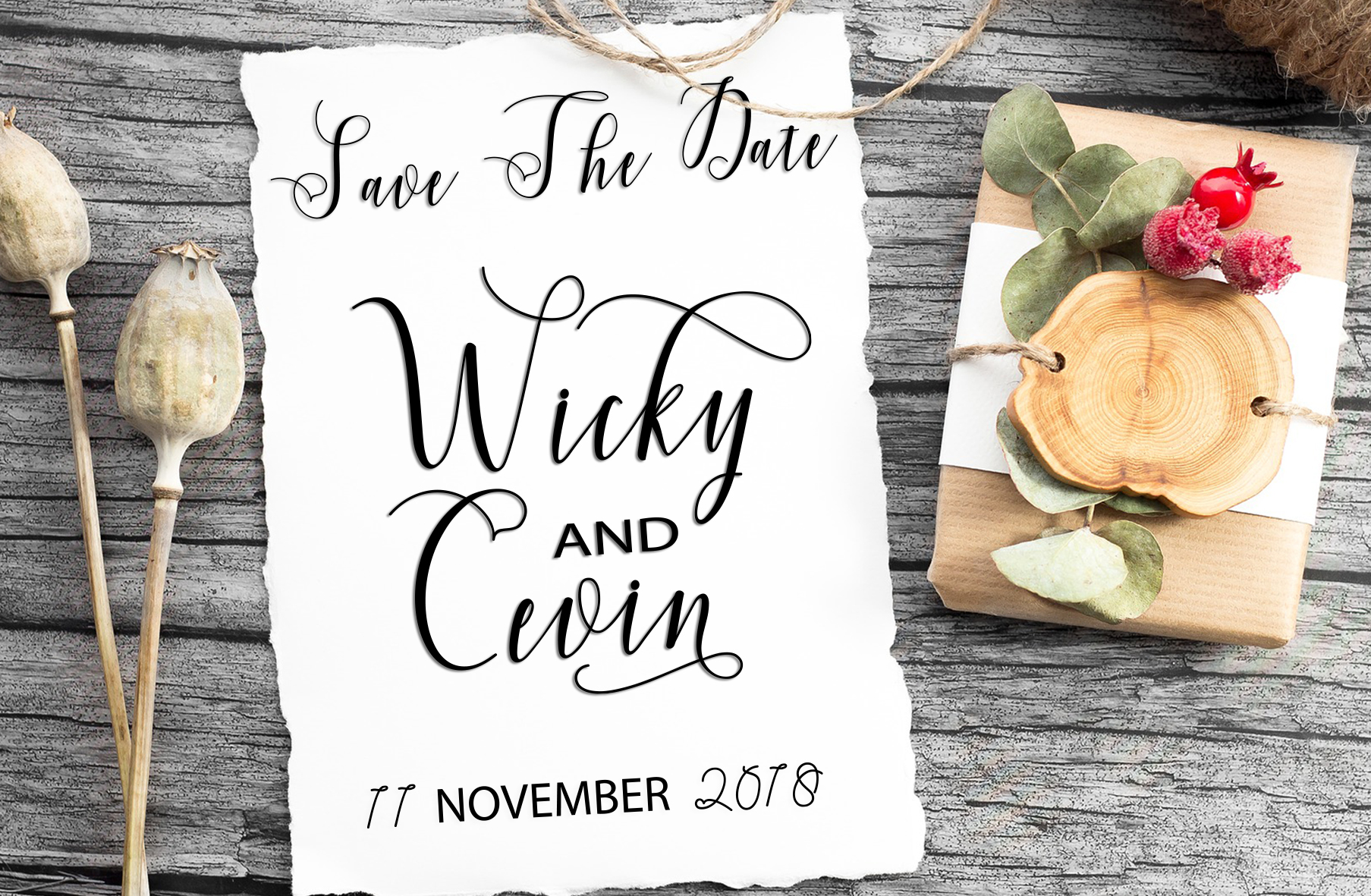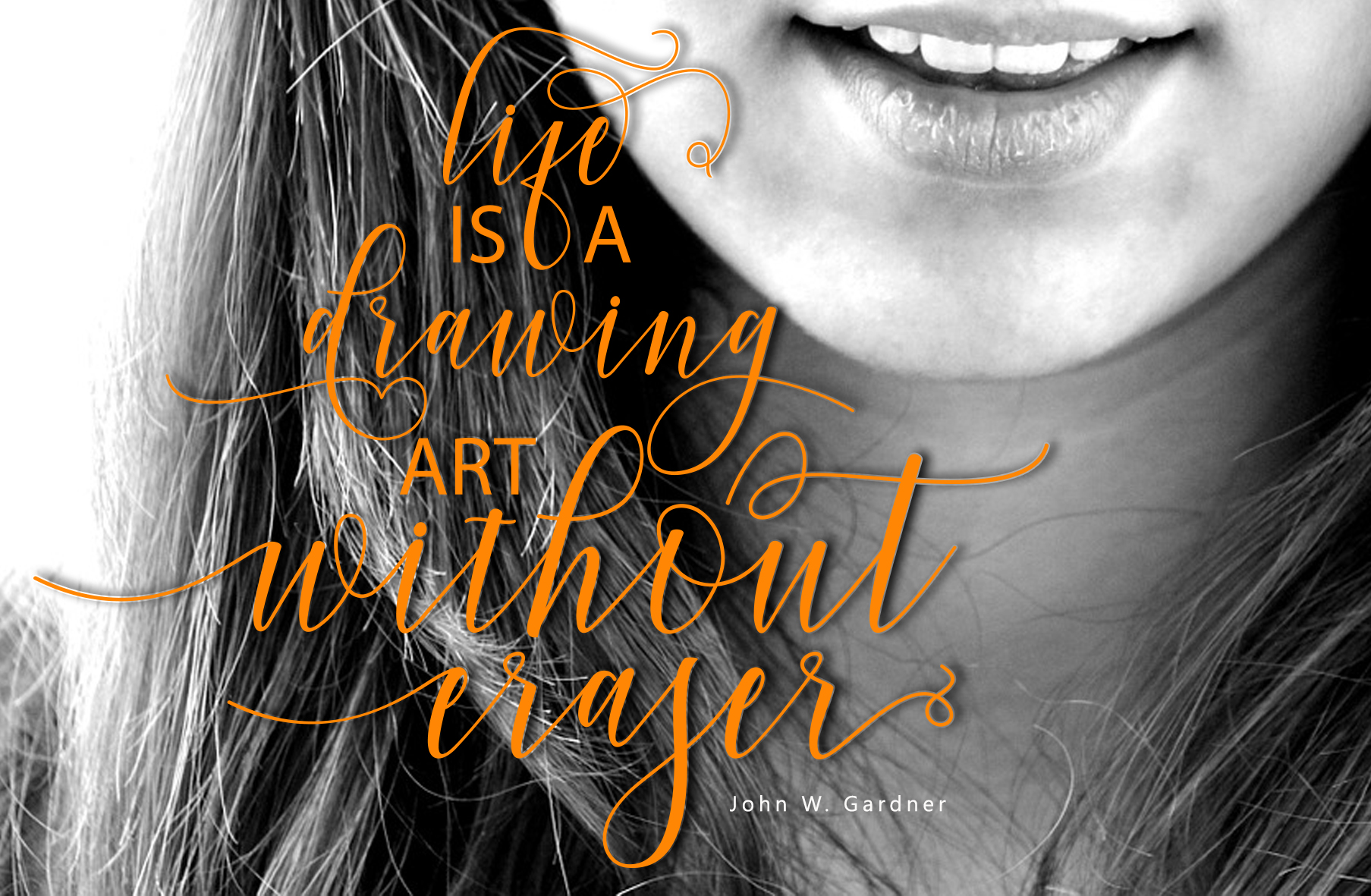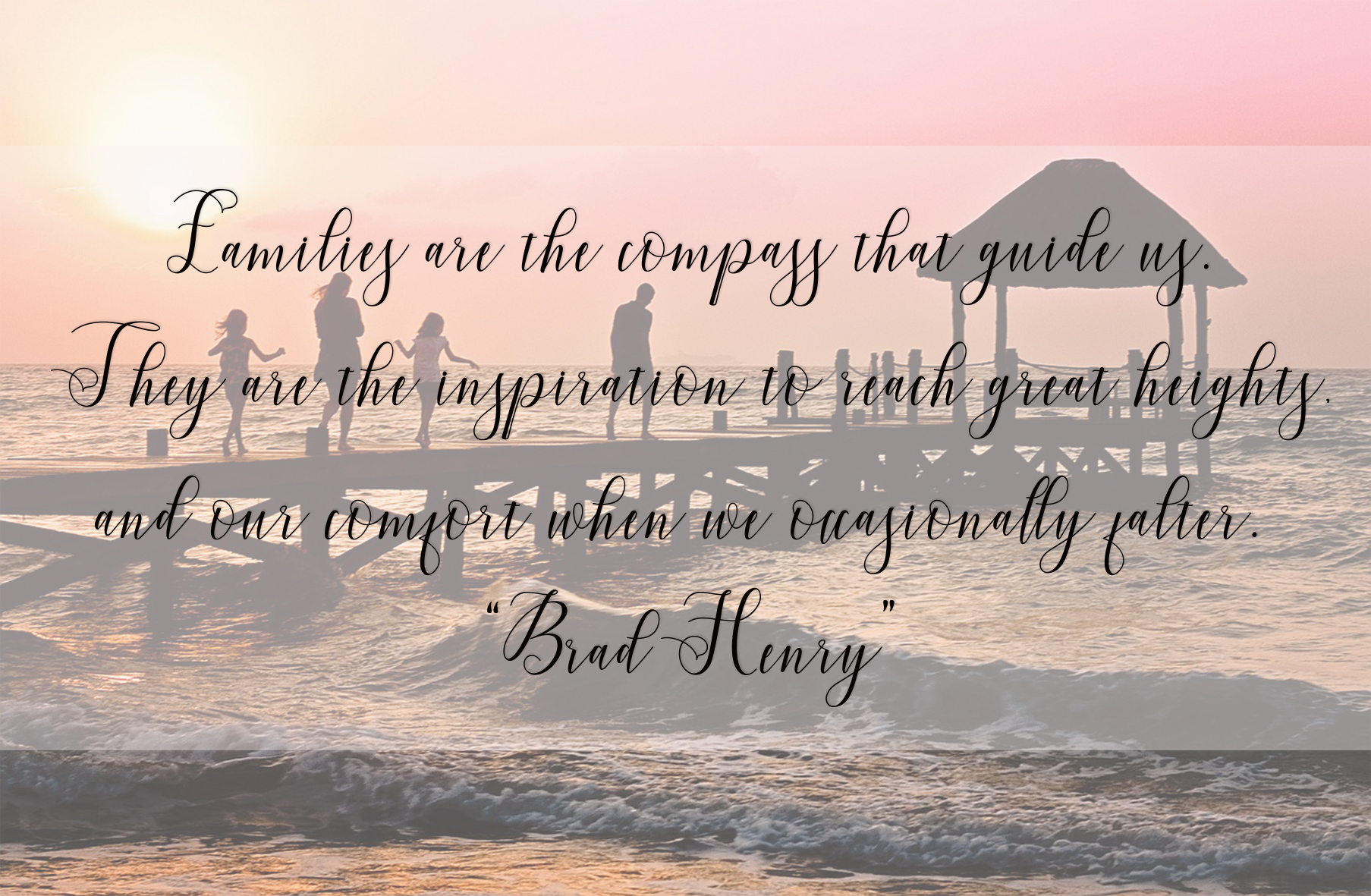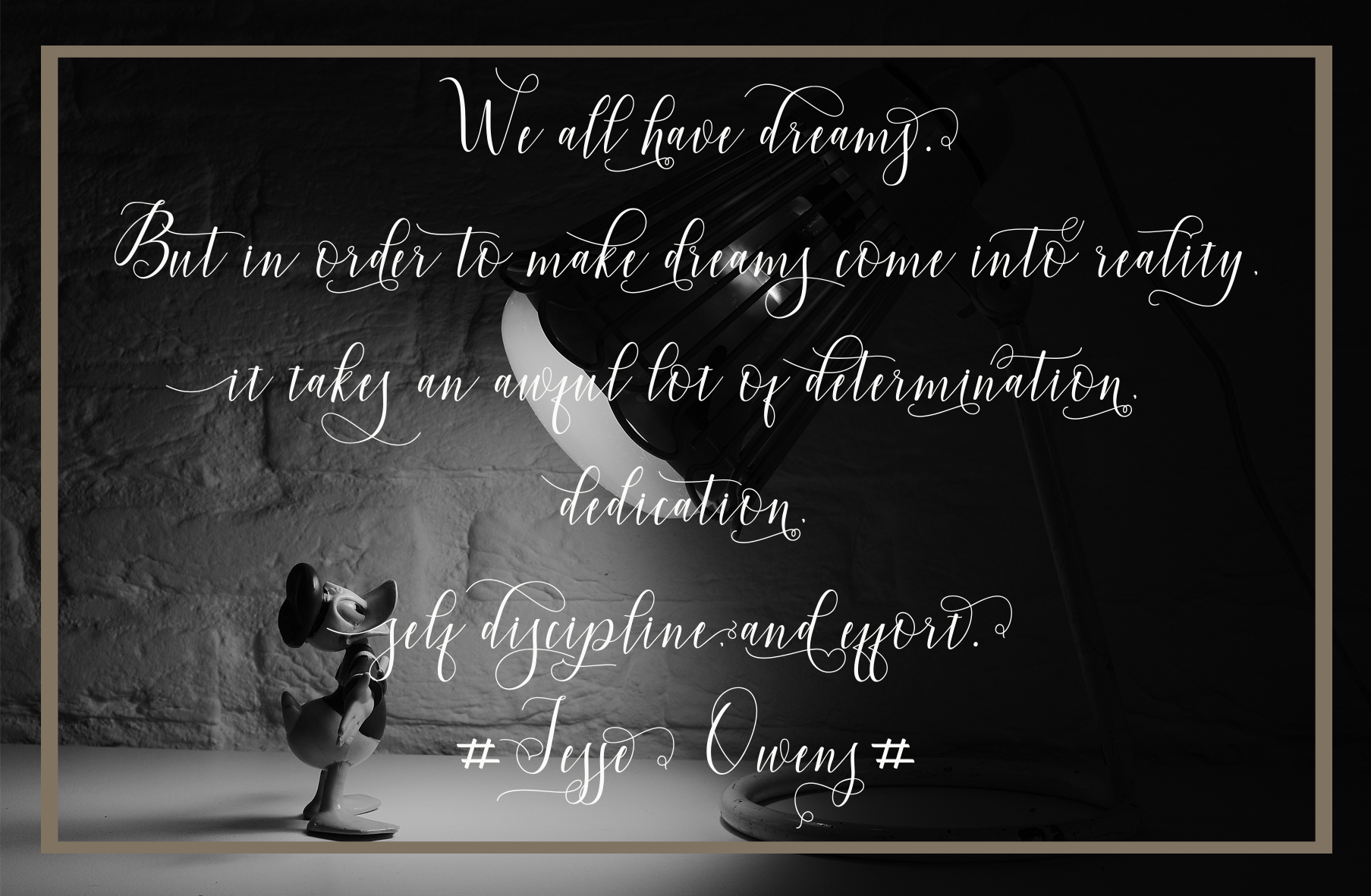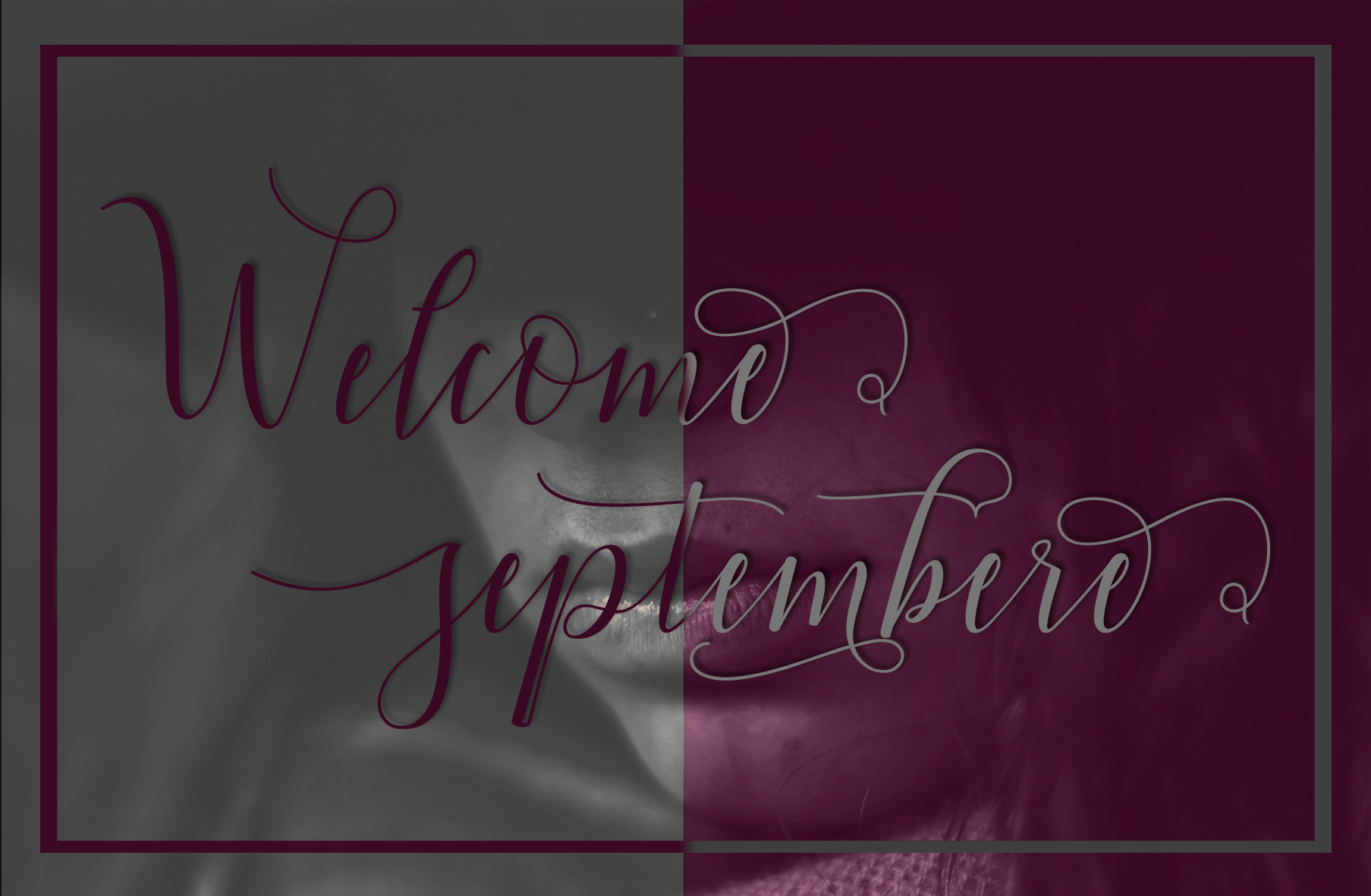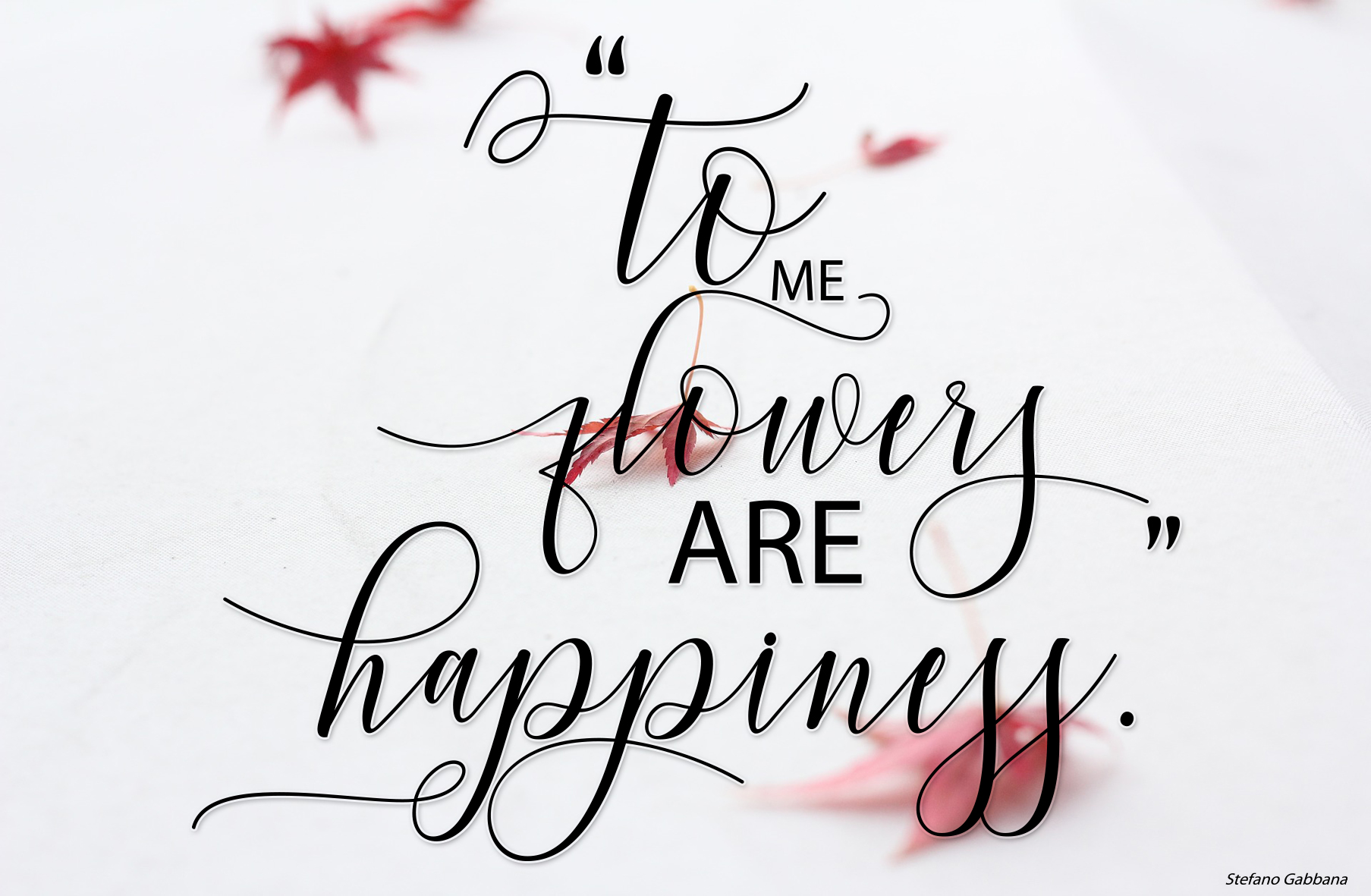
Introduction to Hello Violetta Font
As you sit down to work on your latest creative project, you know that the right font can make all the difference. It’s that moment when you’re searching for the perfect script to elevate your design and make it truly stand out. And then, you stumble upon it – the perfect font that adds a touch of elegance and sophistication to your work. This is where the Hello Violetta Font comes in, a modern handcrafter script that’s about to revolutionize your design process.
With its 526 unique glyphs, the Hello Violetta Font offers a wealth of creative possibilities, allowing you to experiment with different styles and designs. Whether you’re working on a project that requires a high-quality, transparent background or simply want to add a touch of personality to your design, this font has got you covered.
Key Features of Hello Violetta Font
- High-quality, hand-drawn design ideal for creative projects, posters, and graphics.
- Features a unique, elegant style with intricate details, perfect for adding a touch of sophistication to designs.
Honest Review: Hello Violetta Font
As a designer, I’m always on the lookout for high-quality design resources to enhance my creative projects. The Hello Violetta Font is one such resource that caught my attention, and I’m excited to share my honest review.
- ✨ The font is beautifully designed with a unique aesthetic that adds a touch of elegance to any design project.
- ⚠️ The font is available in a limited number of weights, which may not be enough for some designers who require a more extensive range of weights.
Overall, I’m impressed with the Hello Violetta Font, and I think it’s a great addition to any designer’s toolkit. Its unique design and free download make it an excellent resource for creative projects. While it has some limitations, I believe it’s a valuable design resource that’s worth exploring.
Hello Violetta Font
The Hello Violetta Font is commonly used in wedding invitations, baby shower invitations, and other creative projects requiring a touch of sophistication.
Alternatives to Hello Violetta Font
Great Vibes is a beautiful, elegant script font that’s perfect for creative projects requiring a high-quality, handwritten look. It’s ideal for wedding invitations, event branding, and any design that needs a touch of sophistication.
Great Vibes Font is a more traditional and formal script compared to Hello Violetta Font. While Hello Violetta Font has a more playful and modern feel, Great Vibes Font is better suited for formal events and corporate designs.
Pacifico is a modern, elegant script font that’s perfect for creative projects requiring a high-quality, sophisticated look. It’s ideal for branding, packaging, and any design that needs a touch of luxury.
Pacifico Font is a more refined and polished script compared to Hello Violetta Font. While Hello Violetta Font has a more whimsical and artistic feel, Pacifico Font is better suited for high-end designs and luxury brands.
Alex Brush is a beautiful, elegant script font that’s perfect for creative projects requiring a high-quality, handwritten look. It’s ideal for wedding invitations, event branding, and any design that needs a touch of sophistication.